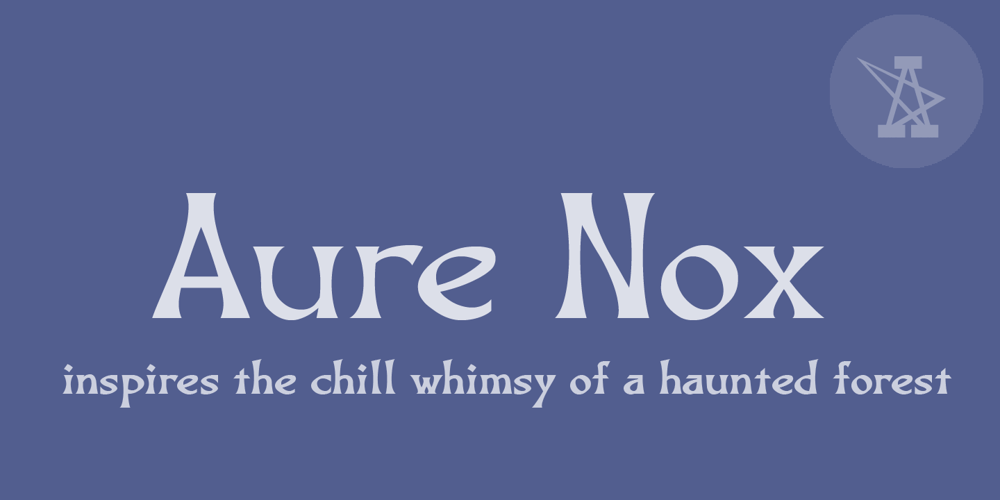
Aure Nox
Aure Nox font
Aure Nox Font Family was designed by Aurora Isaac and published by Aure Font Design. Aure Nox contains 8 styles and family package options. Aure Nox inspires the chill whimsy of a haunted forest. The roughhewn forms of this decorative, sans-serif font engage the reader with a subtext of rakish charm. Surprisingly legible, Nox adds a bit of rebelious sass to text and titles, and a daring stance to astrological expressions and chartwheels. Nox is an original design developed by Aurora Isaac. After more than a decade in development, 2018 marks the first release of the CJ and KB glyphsets in regular, italic, bold, and bold-italic. The CJ glyphset is a full text font supporting a variety of European languages. A matching set of small-caps complements the extended lowercase and uppercase glyphsets. Supporting glyphs include standard ligatures, four variations of the ampersand, and check-mark and happy-face with their companions x-mark and grumpy-face. Numbers are available in lining, oldstyle, and small versions with numerators and denominators for forming fractions. Companion glyphs include Roman numerals, specialized glyphs for indicating ordinals, and a variety of mathematical symbols and operators. The CJ glyphset also includes an extended set of glyphs for typesetting Western Astrology. These glyphs are also available separately in the KB glyphset: a symbol font re-coded to allow easy keyboard access for the most commonly used glyphs. Though Nox stands well on its own as a text font, the more traditional sans-serif forms of Aure Jane pair well as an innocuous foil to Nox’s brazen presence. Give Aure Nox a trial run! You may discover a permanent place for this font family in your typographic palette. >> AureFontDesign.com